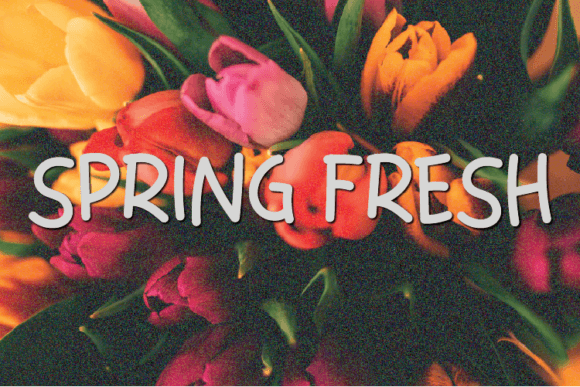
Unleash the beauty of words with Spring Fresh Font, the enchanting script that will transform your creative visions into captivating masterpieces.
Picture this: your tattoo quotes, with each stroke as fluid as the wind, capturing the essence of your thoughts with undeniable charm. Spring Fresh Font is your gateway to expressing yourself with a touch of whimsy and uniqueness.
This font is not merely a collection of letters; it's a passport to a world of creativity. Imagine your handwritten notes, now adorned with a graceful cursive that dances across the page, leaving a trail of elegance and inspiration.
Spring Fresh Font is the soulmate for your t-shirt designs, adding a personal touch that will make every piece a cherished keepsake. Its playful yet sophisticated character will elevate your product designs, transforming them into objects of desire.
Hanna Bie, the creative mind behind Spring Fresh Font, poured her passion into crafting each letterform. Her love for natural and friendly handwriting shines through, ensuring that your words will resonate with heartfelt authenticity.